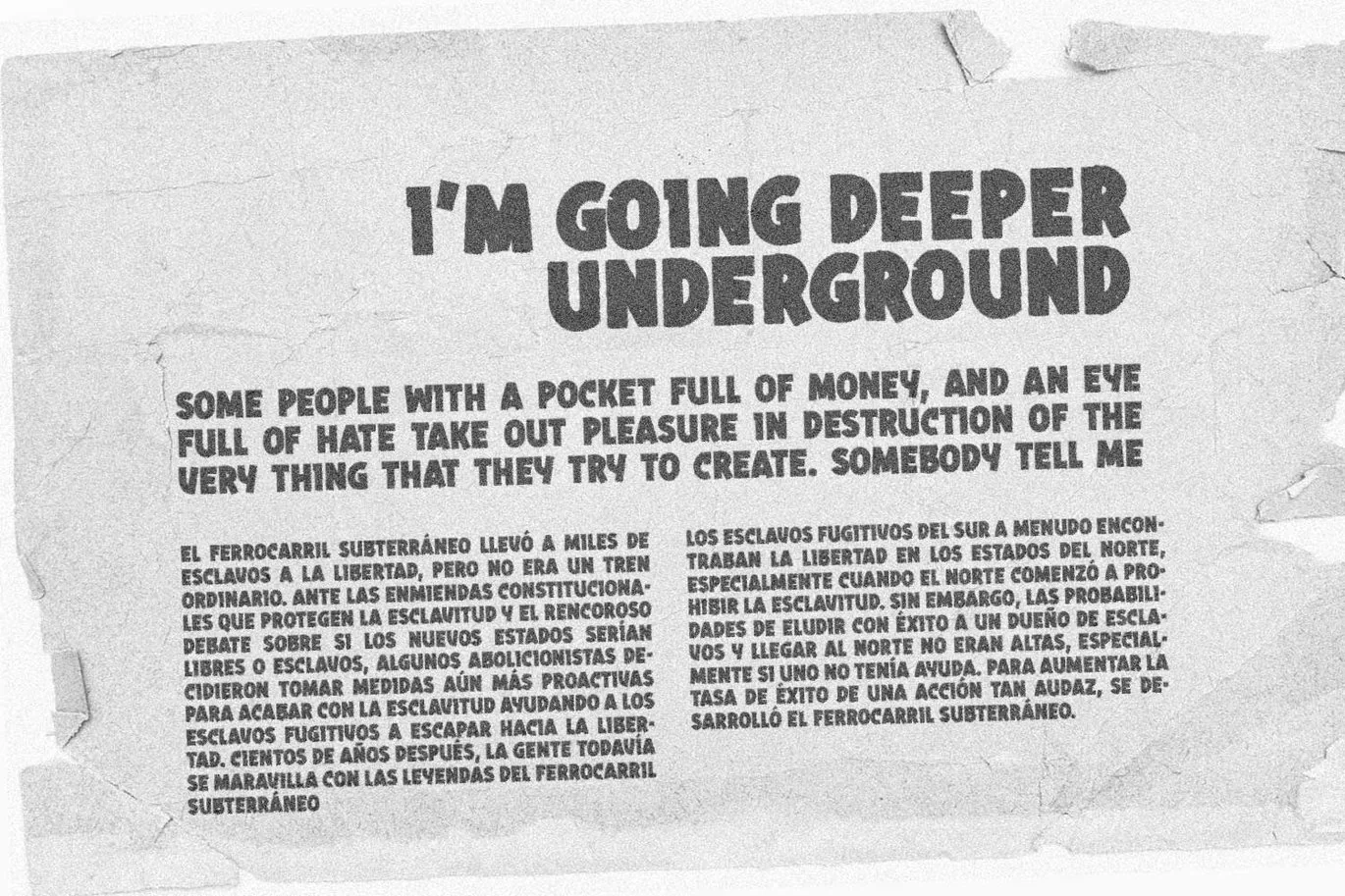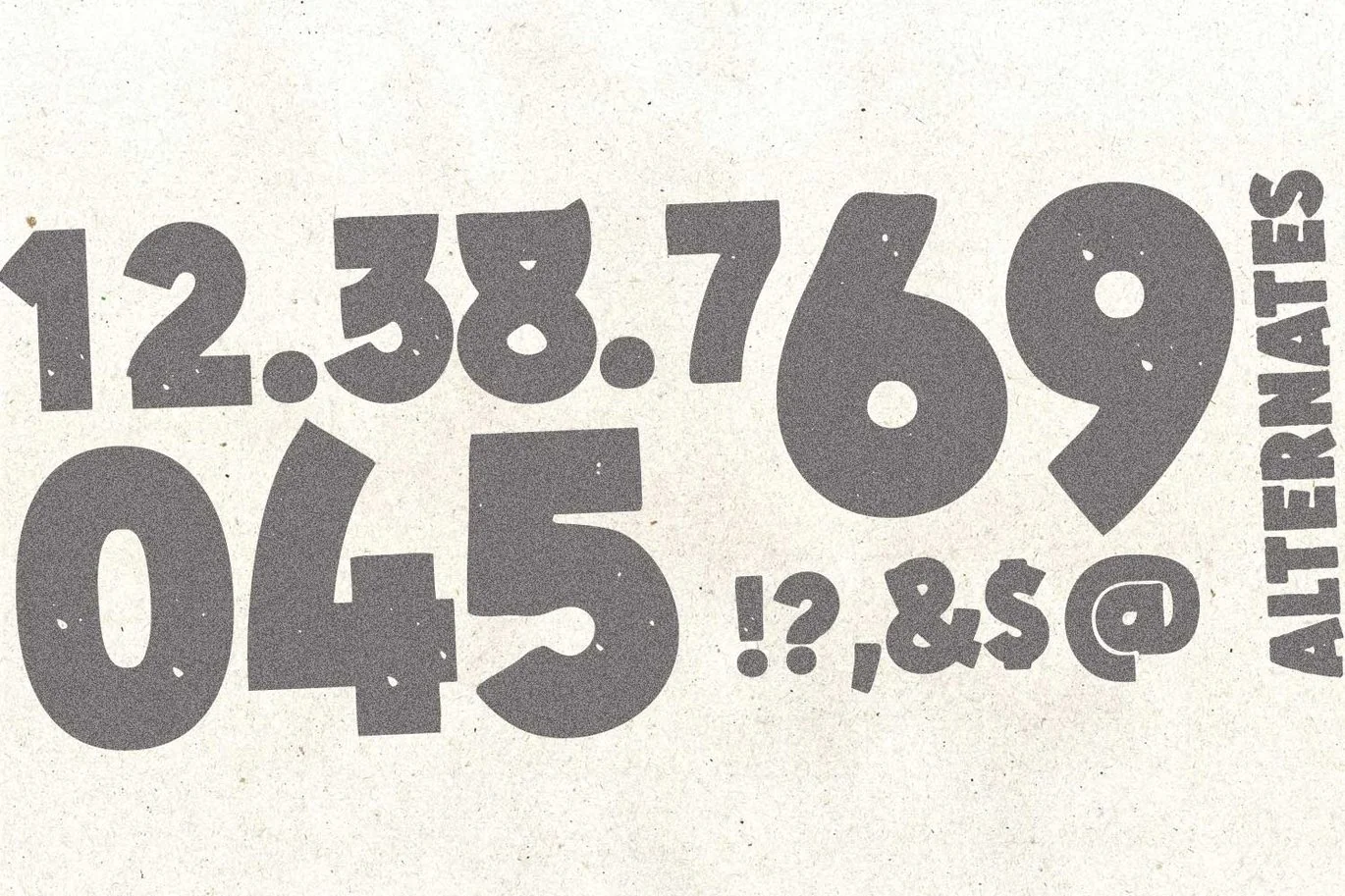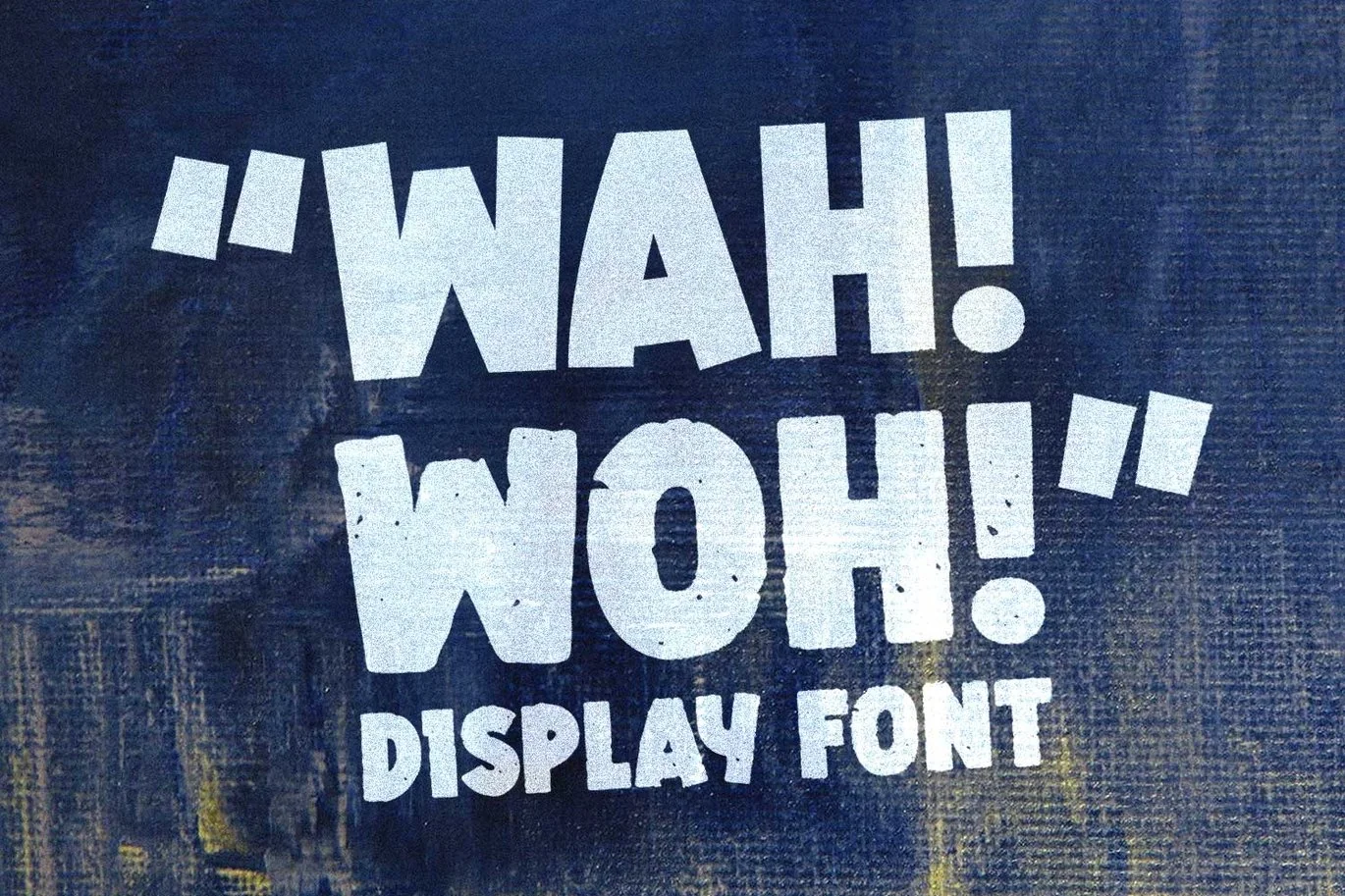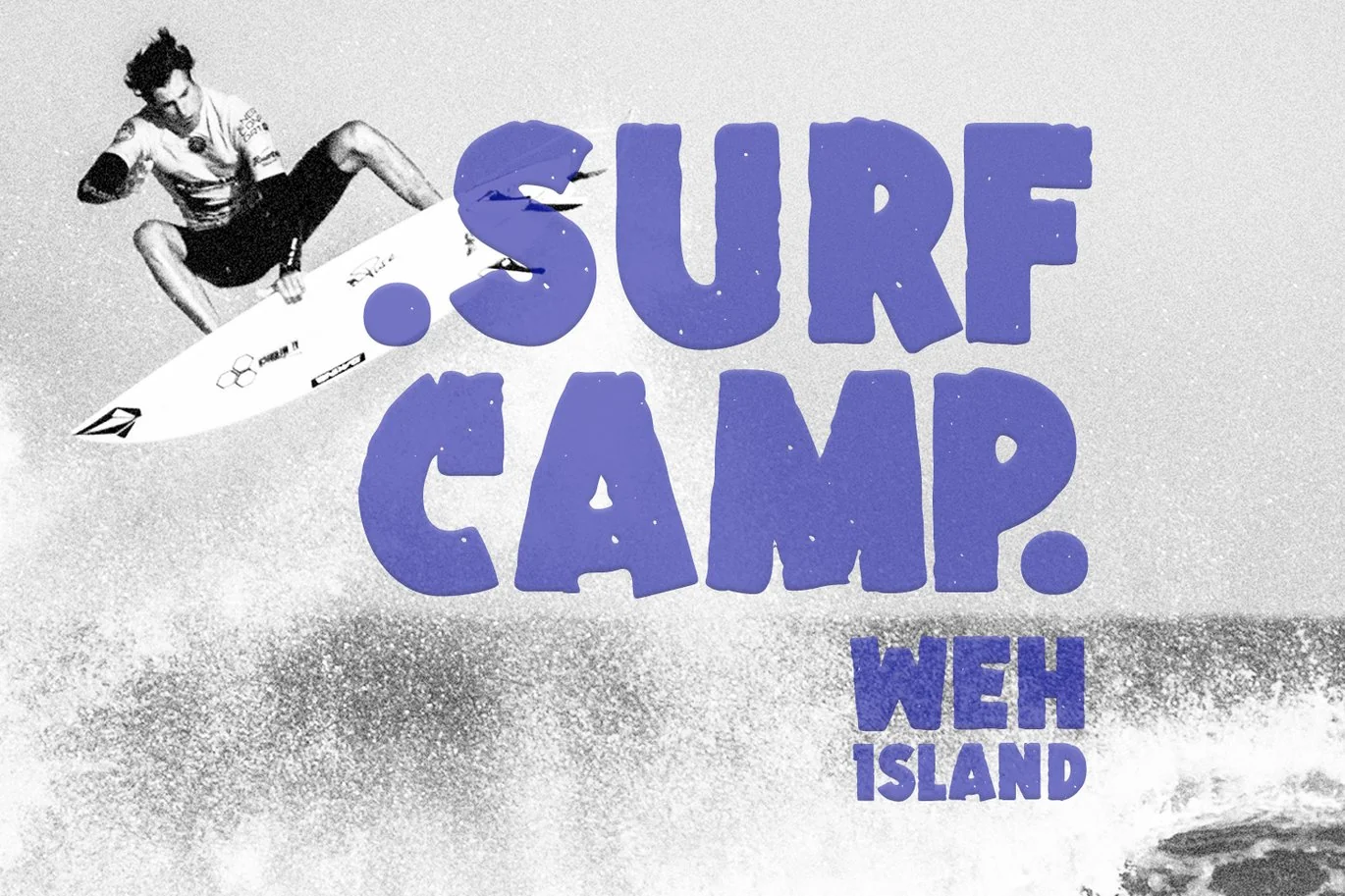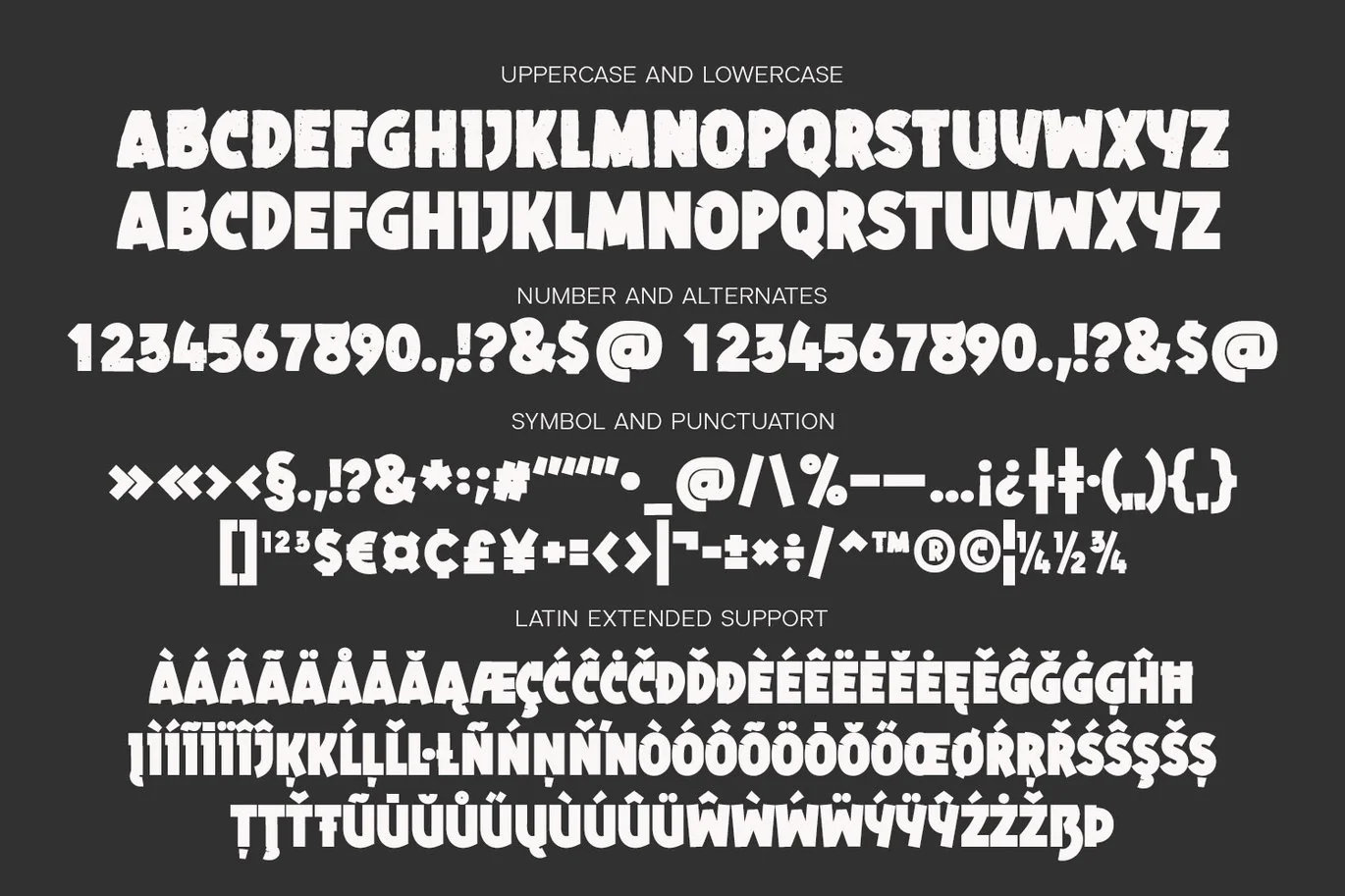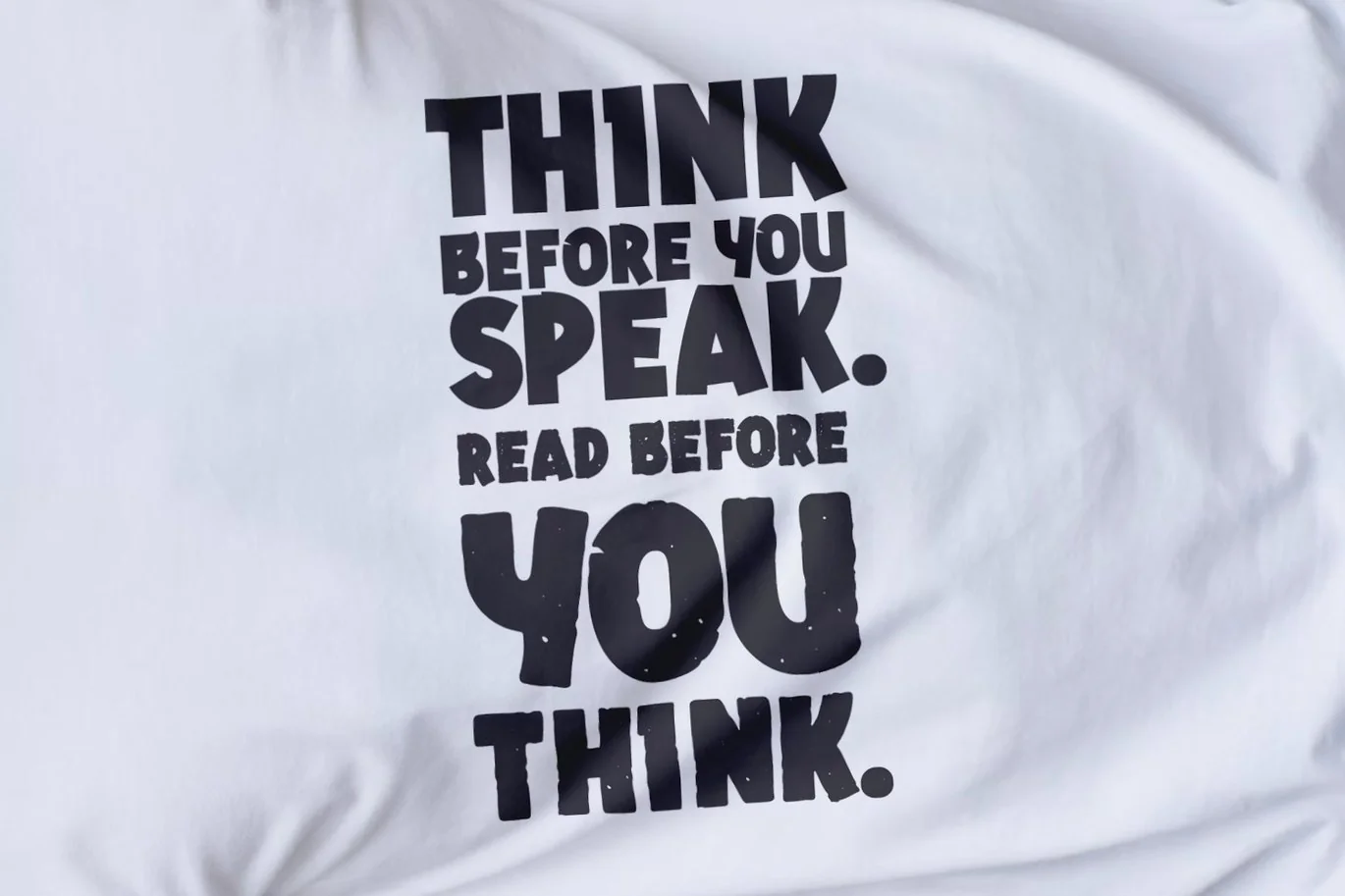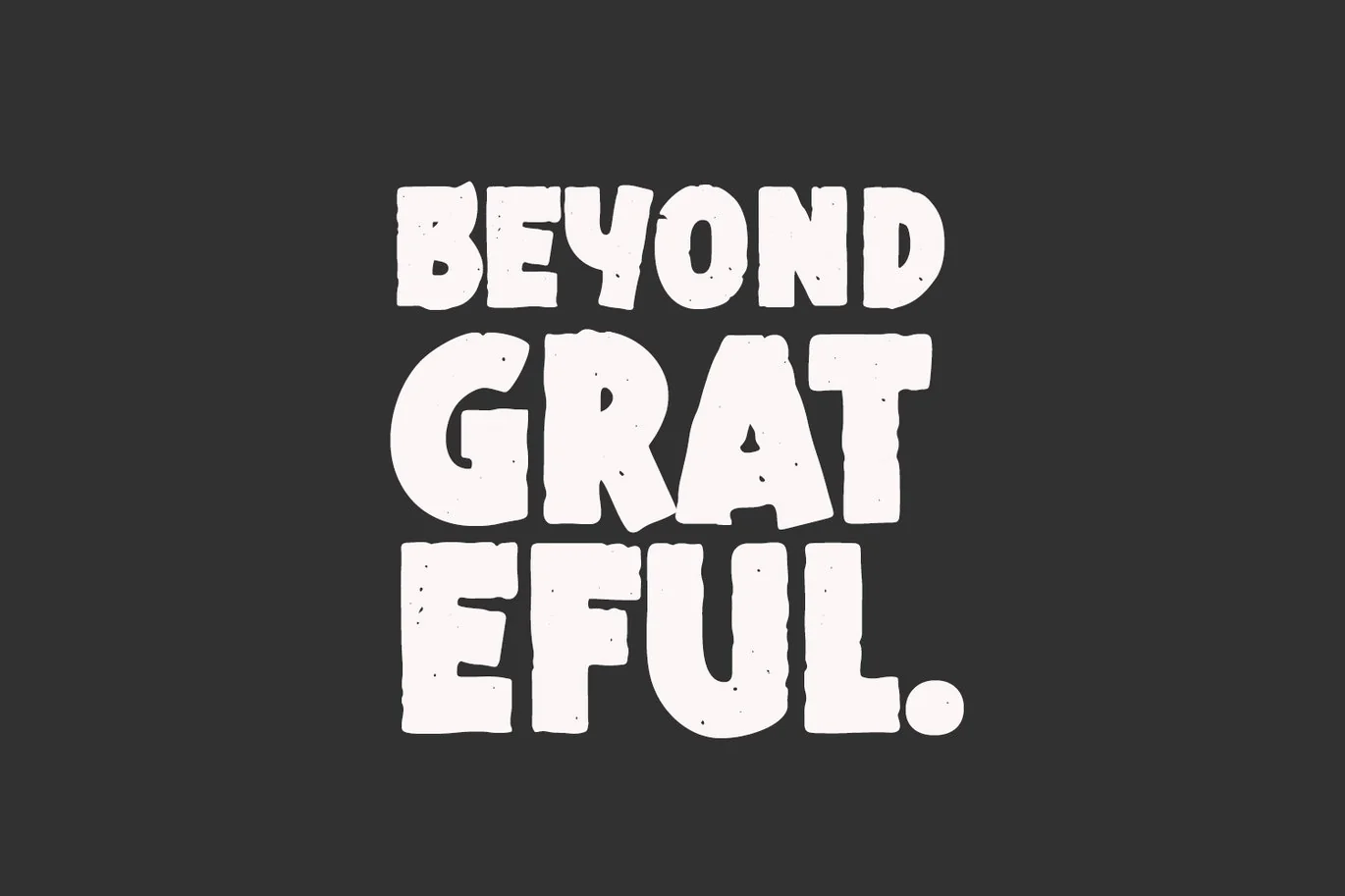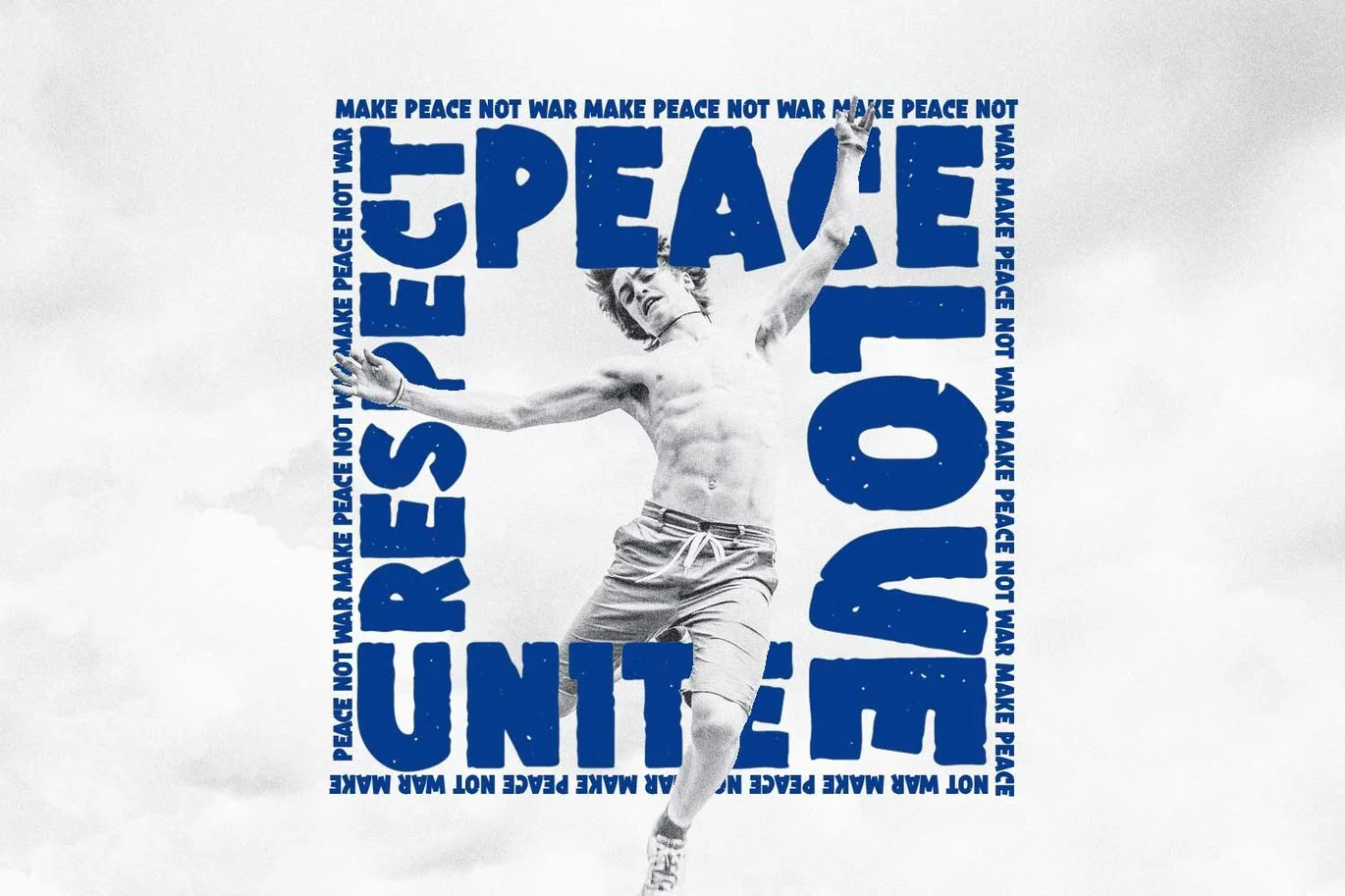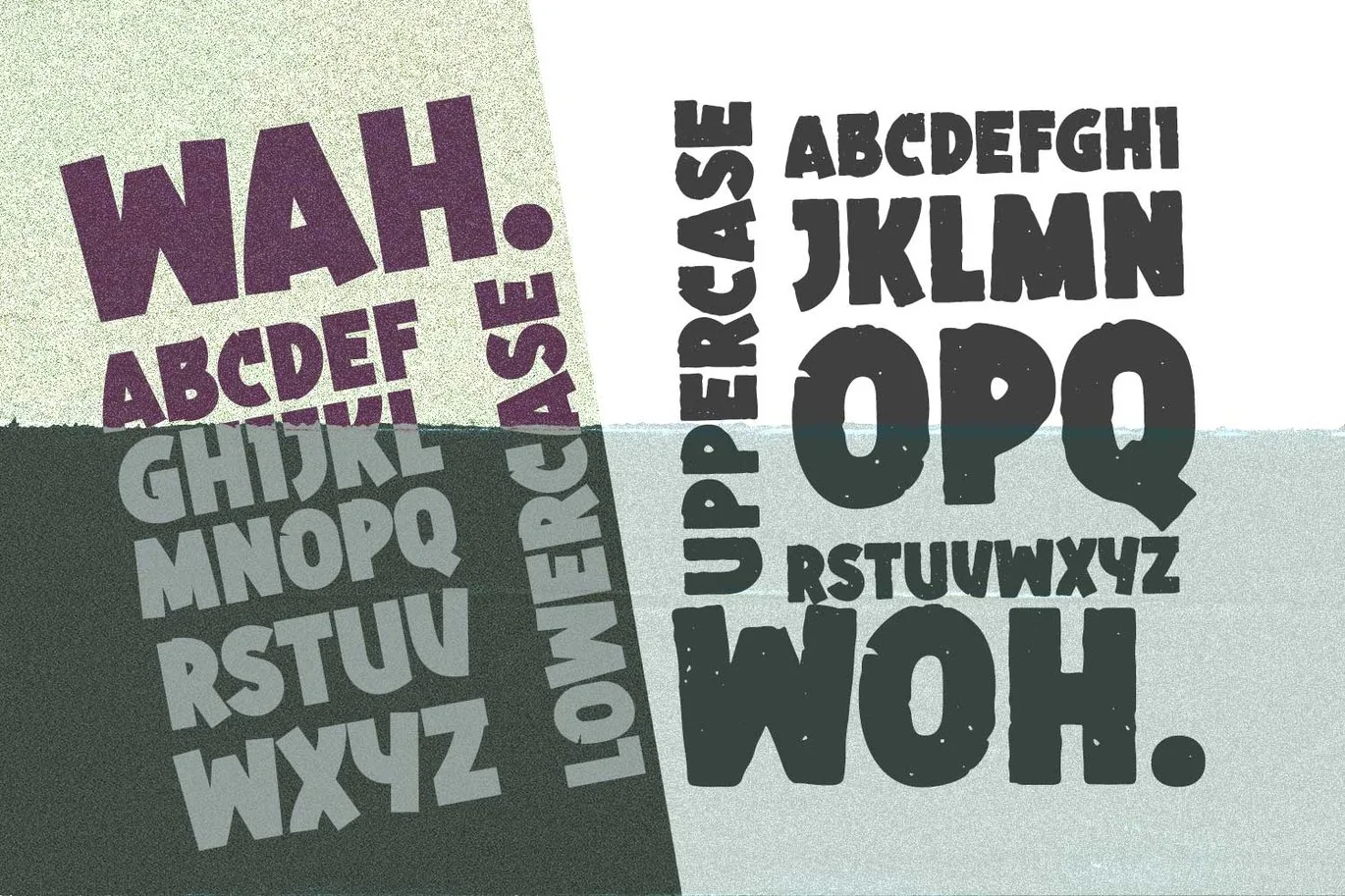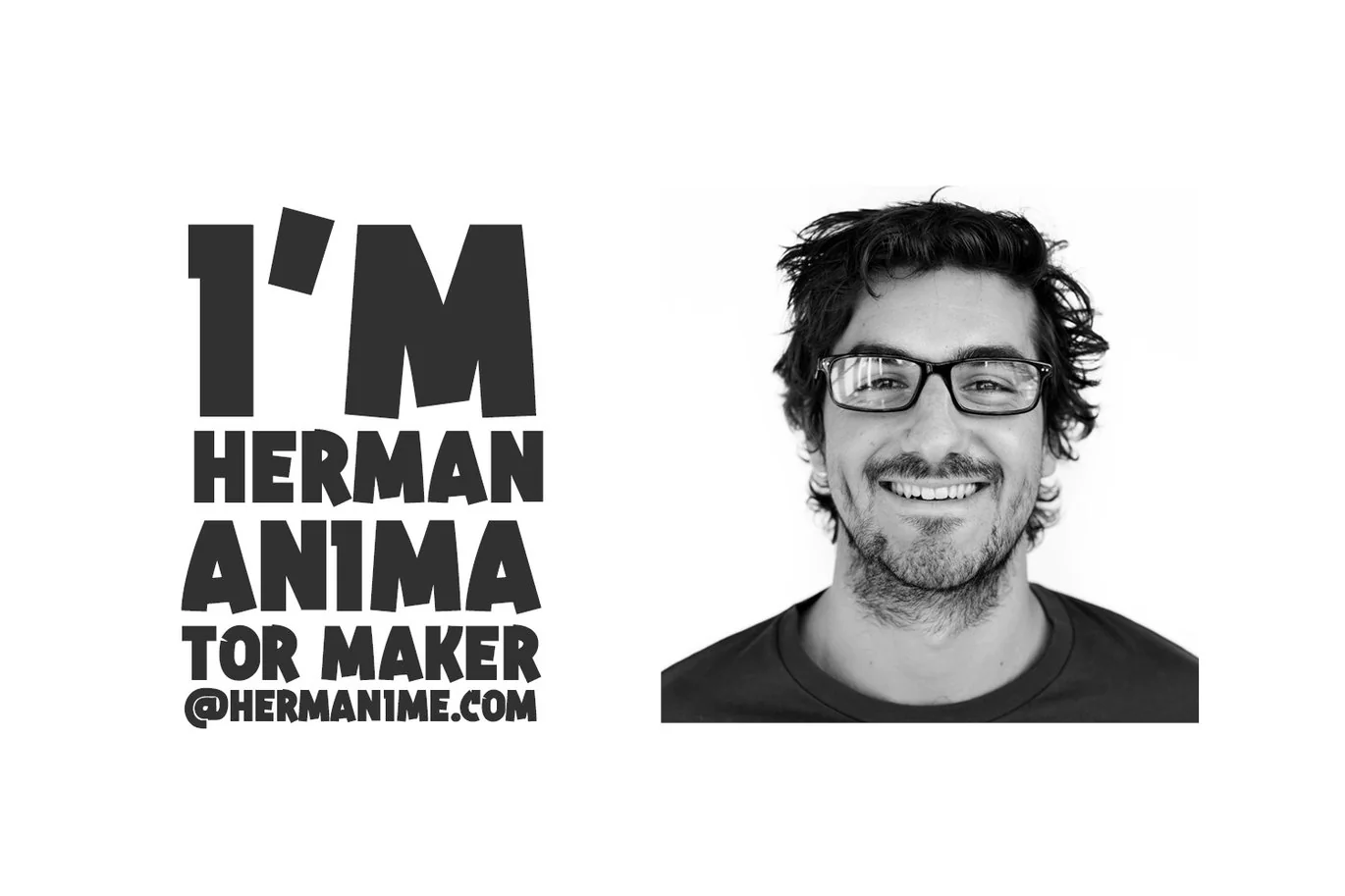
Wahwoh Display Font
WAHWOH is a heavy allcaps font which is perfect for heavy titles and headlines. The uppercase looks rough while the lowercase looks sharp.
This typeface gives the impression of street style, bold, retro, urban and modern style.
Clear and bold, easy to combine with other artwork and typefaces, this is the reason why you should have this font.